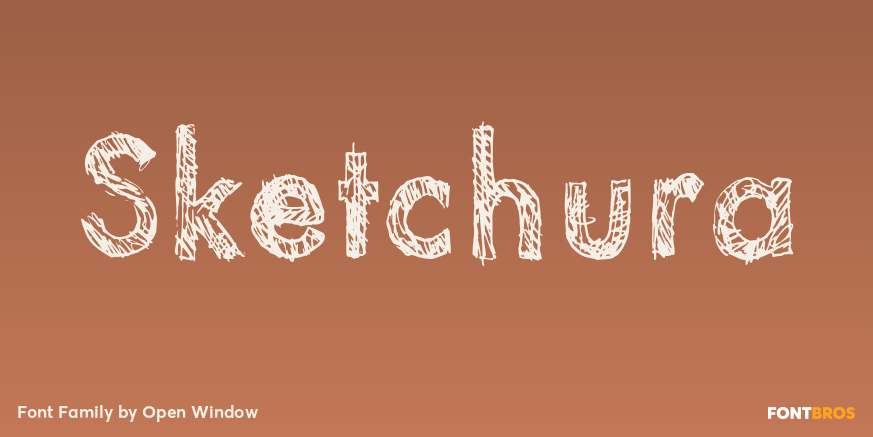
HomeFont BrosSans SerifSketchura Sans SerifUrbanSpecial Effect Sketchura FacebookXPinterestWhatsApp 1 of 1 About Sketchura offers a gritty twist on a classic font style -Futura- It was completely hand sketched which makes the font an organic centerpiece to any of your grungy design applications.  DOWNLOAD NOW People also explored Ramanda Victoria Font Morning Person Font Hand Right Lf Font Basketball Font Madam Ghea Font Amallicita Font Falesia Font Backline Font Yellow Meow Font 221 0 TagsSketchura Font Previous articleEmoryNext articleFamosa LEAVE A REPLY Cancel reply Comment: Please enter your comment! Name:* Please enter your name here Email:* You have entered an incorrect email address! Please enter your email address here Website: Save my name, email, and website in this browser for the next time I comment. Personal Use Free Kitchen Blue Personal Use Free Read more about this font The Sweet Neo Personal Use Free Read more about this font New System Personal Use Free Read more about this font Hollow Personal Use Free Read more about this font BLOG Free Fonts Risk: Why Free Fonts Can Be Dangerous for Designers Free Fonts Risk: Why Free Fonts Can Be Dangerous for Designers Using free fonts is a common practice in web and graphic design. However, the... Transform Your Website: Elevate Your Typography with 7 Best Web Font Generators To increase your work productivity, choose the most readable fonts. Elegant Wedding Invitation Fonts – Handwritten & Script Fonts